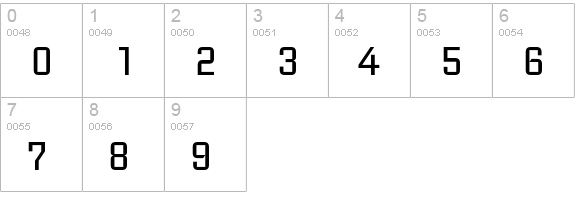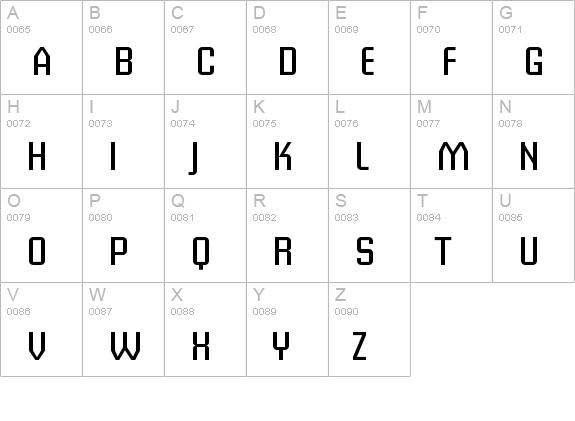
Briem Akademi Std Font Details
Briem Akademi Std is a versatile and elegant font that exudes sophistication and modernity. With its clean lines and refined curves, this typeface is perfect for a wide range of design projects, from editorial layouts to branding and packaging. The graceful letterforms of Briem Akademi Std make it a top choice for conveying professionalism and style. Best of all, Briem Akademi Std is available for free download at FontsMarket.com. This means that you can easily access this high-quality font without any cost, making it an ideal choice for designers looking to elevate their work without breaking the bank. Don't miss out on the opportunity to enhance your projects with the timeless beauty of Briem Akademi Std – download it for free today!